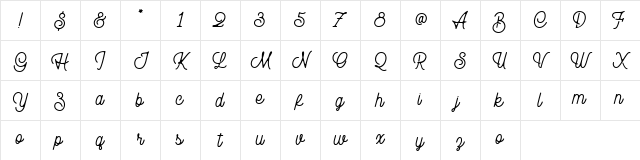
Complete Rampage Monoline Rounded Regular glyph index. Displaying only characters natively supported by Rampage Monoline Rounded Regular font.
Rampage Monoline Rounded uses fixed-width spacing throughout, giving it the structured, systematic character associated with coding environments and technical documentation.
Pro Tip: Use Rampage Monoline Rounded with slightly increased line-height for extended reading - fixed-width spacing can feel dense in longer passages without extra breathing room.